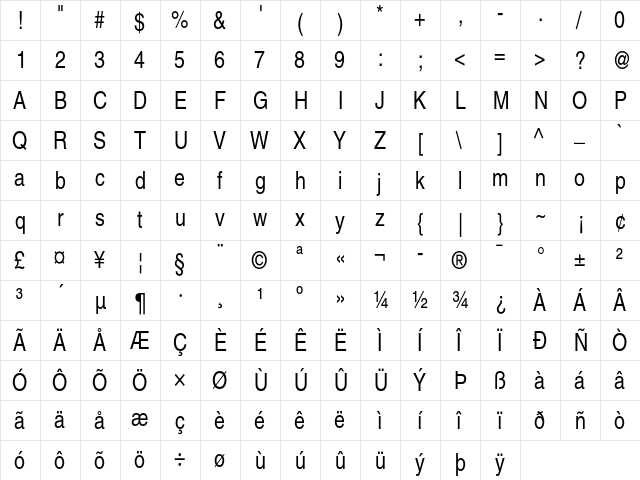
Helvetica Narrow
Design Context for Helvetica Typeface
Helvetica is a composed and adaptable typeface that performs quietly and consistently across a wide range of design contexts. The condensed width makes it efficient for tight spaces without sacrificing legibility.